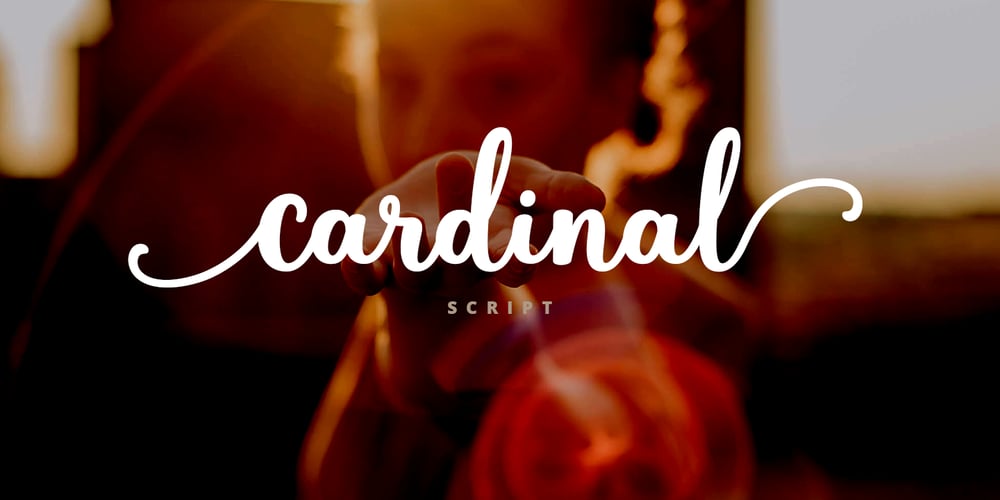
Cardinal Script Font Family was designed by Juni Fadil Putra and published by FadeLine Studio. Cardinal Script contains 1 styles and family package options. This is a beautiful handmade script font made with neat and clean. This font that will make your designs even more fun!With a style like this, this font will be suitable in use for logo’s, branding projects, homeware designs, product packaging, mugs, quotes, posters, shopping bags, logo’s, t-shirts, book covers, name card, invitation cards, greeting cards, and all your other lovely projects.